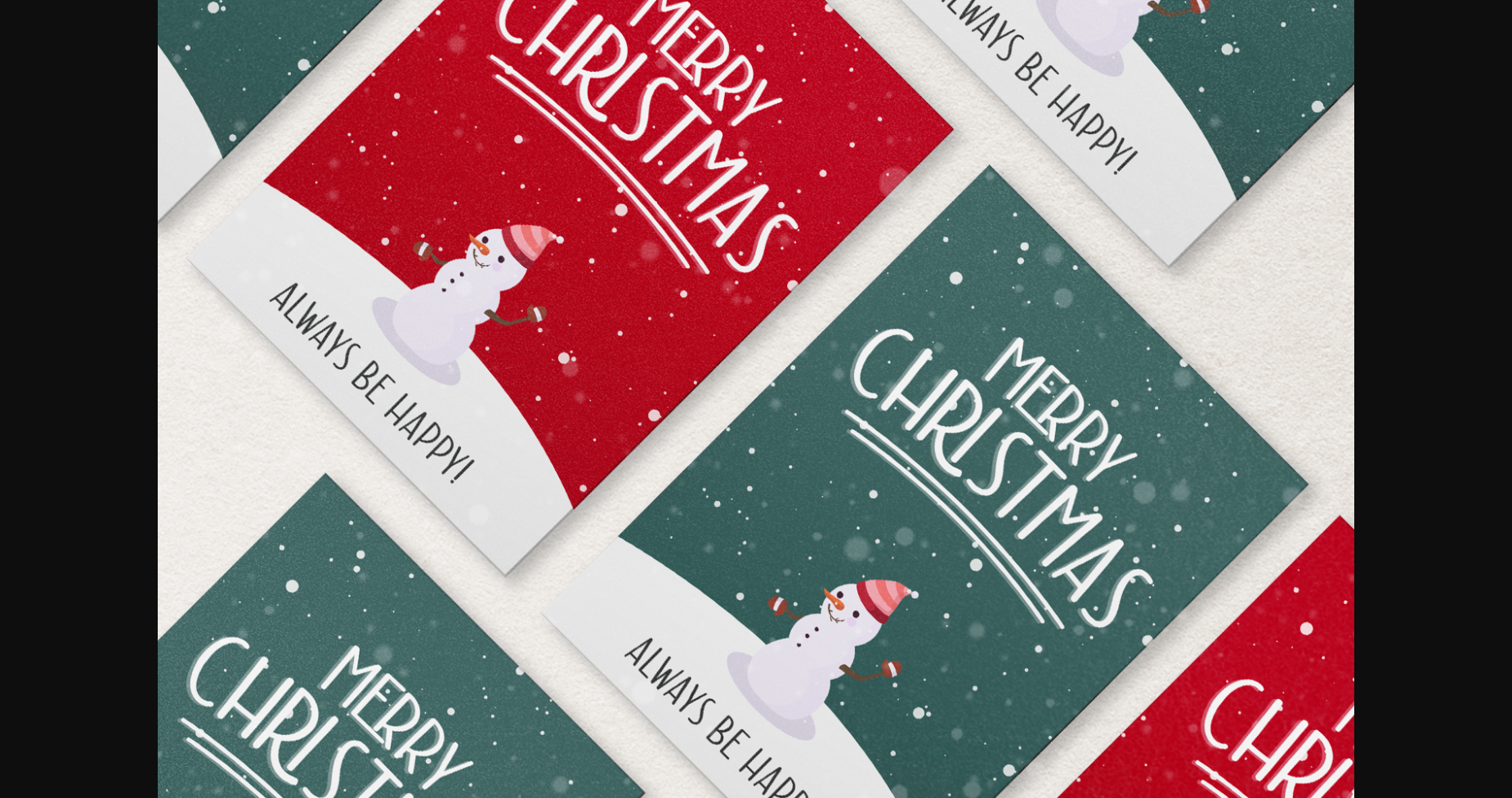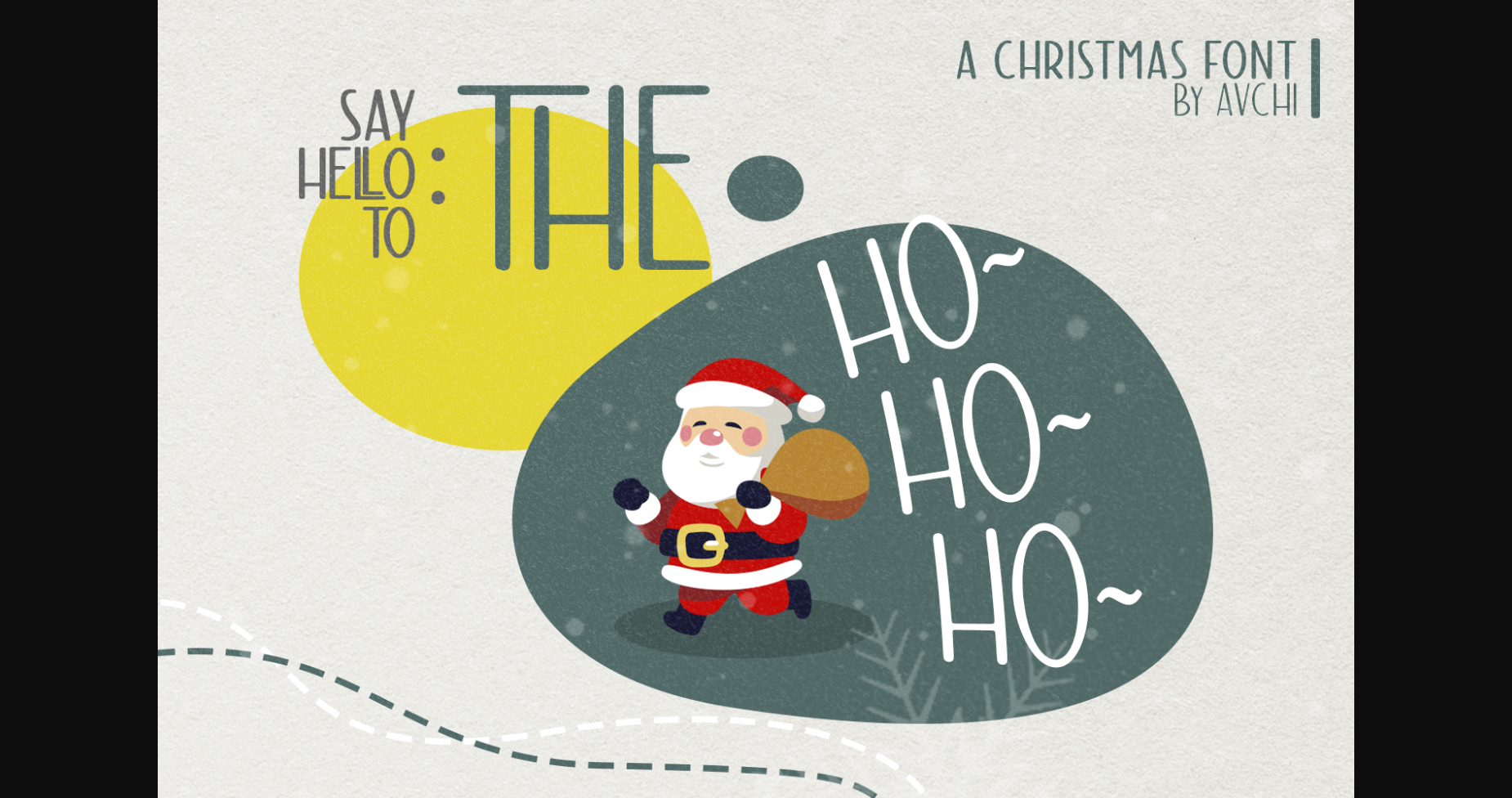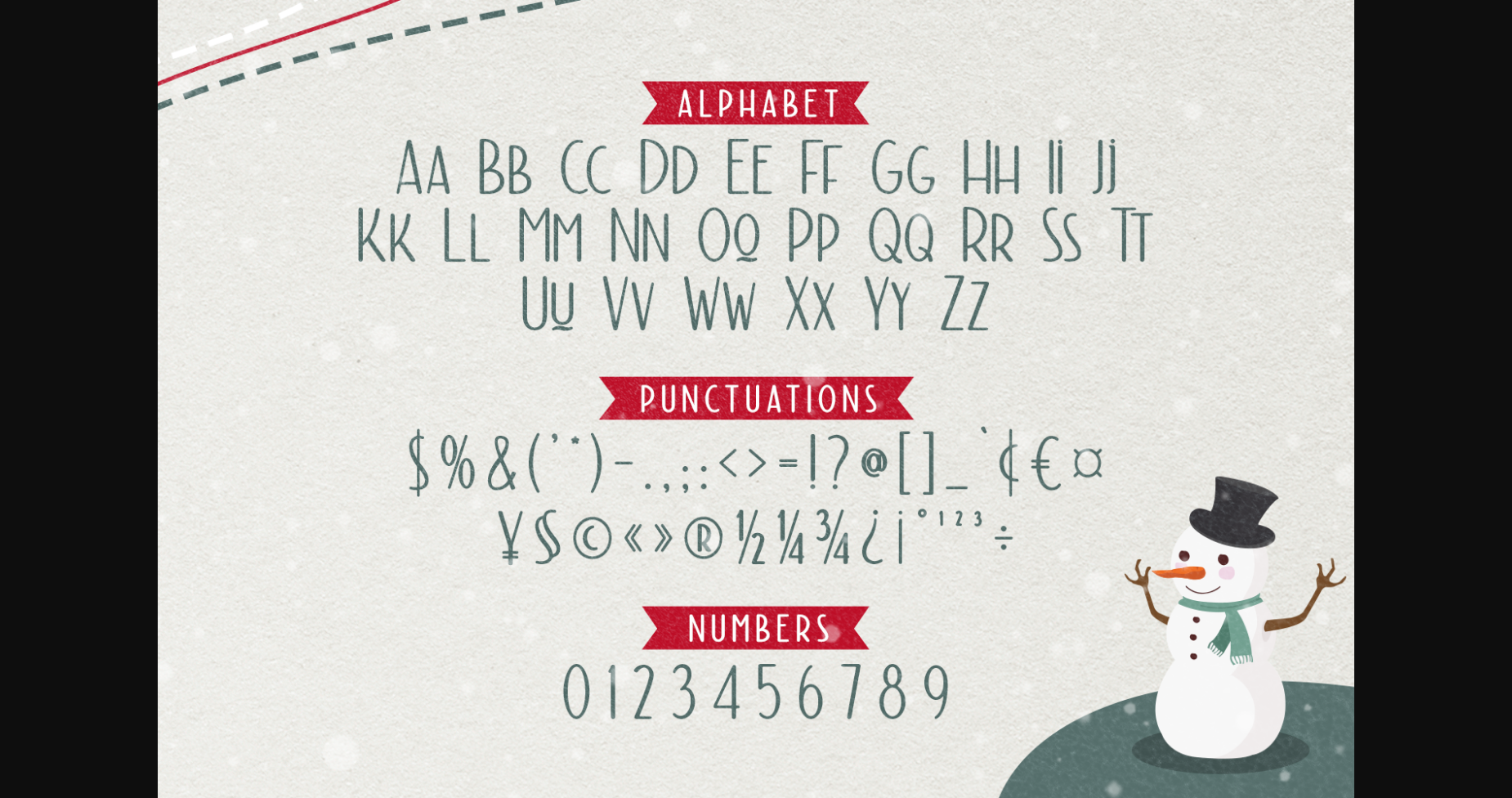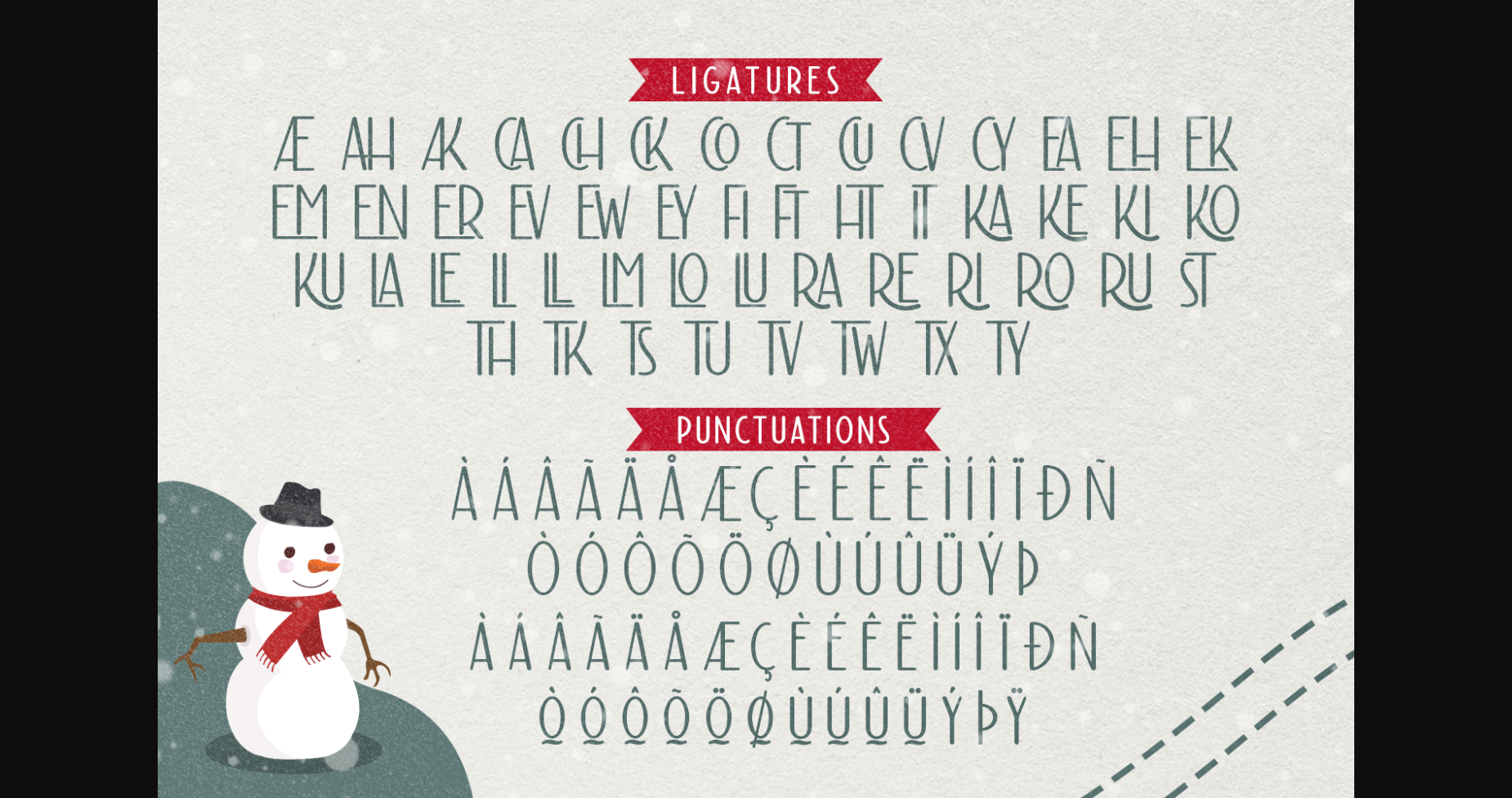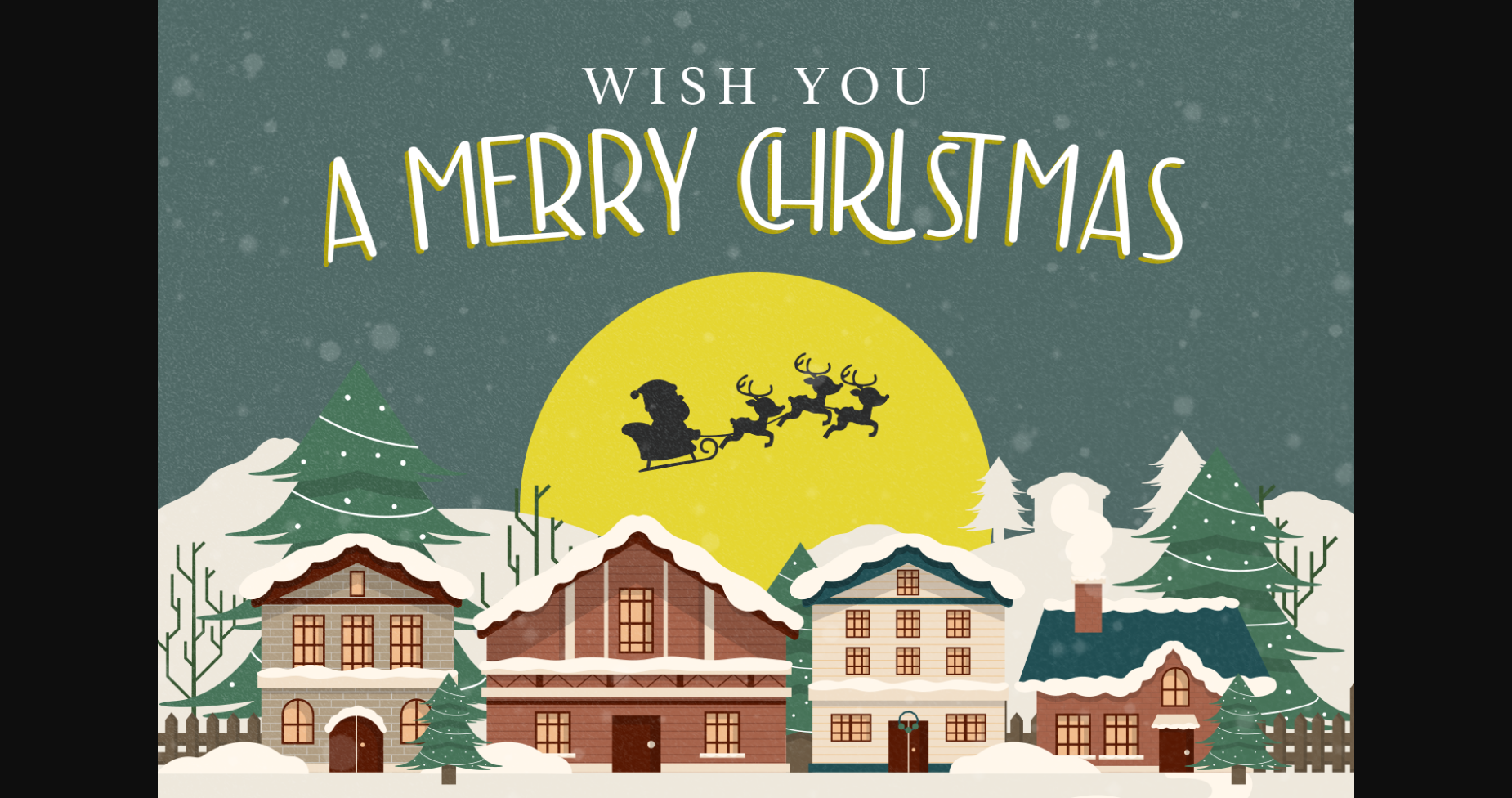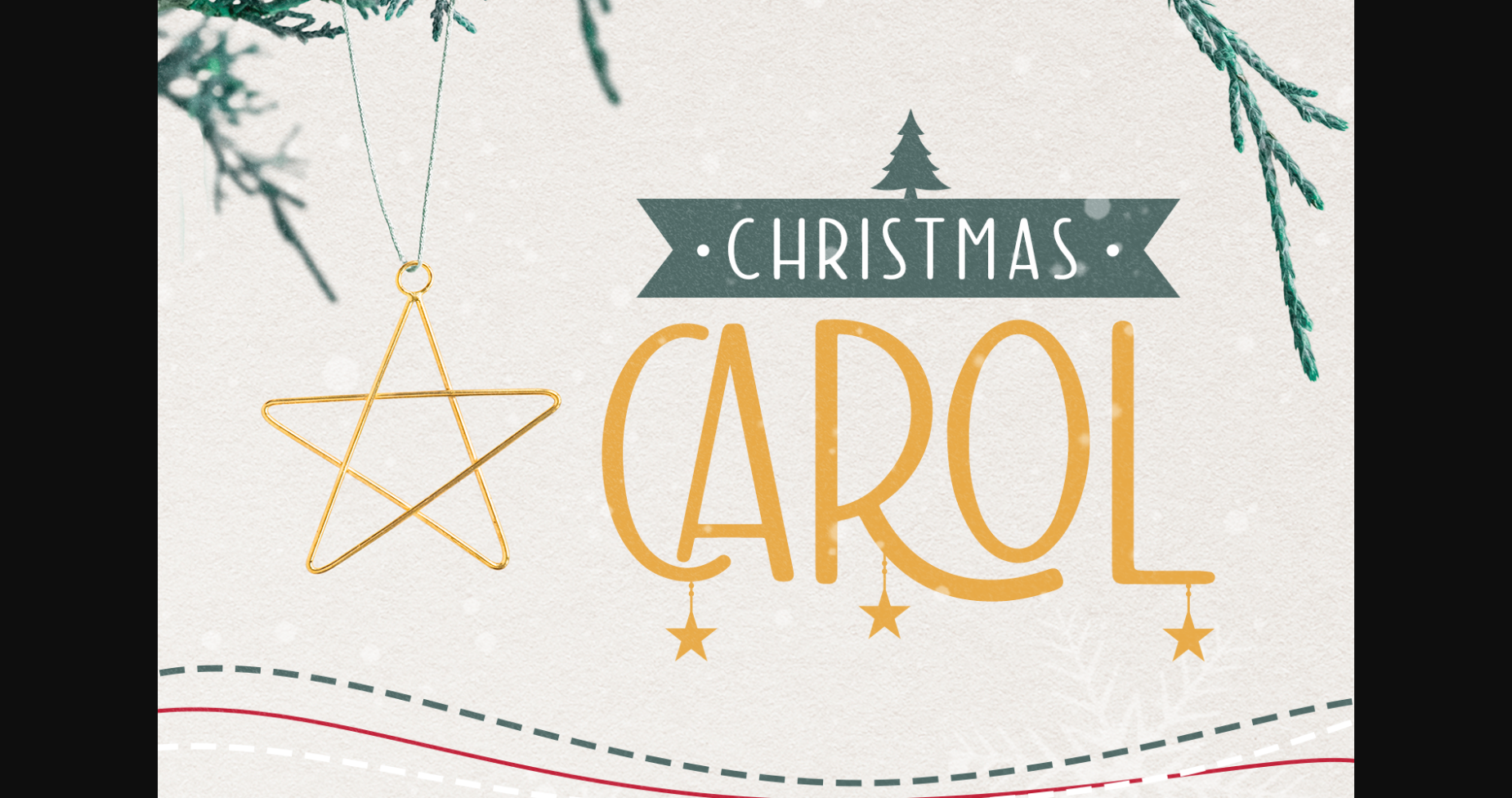
The Hohoho Font
About The Hohoho Font
Tho Hohoho is a warm sans serif font specially created for Christmas. This font has and happy, comic, and fun characters with no sharp corners that will look delightful on your work. Although the main target is Christmas design, it can easily be used on other projects as well. Add it to your creative ideas and you are guaranteed to have stunning results.